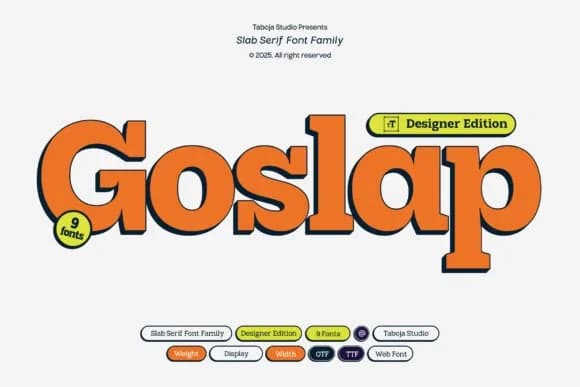
Picture yourself laying out a luxury leather goods catalog or designing corporate identity materials for a high-end brand. Goslap, created by Taboja Studio, is a modern slab serif that brings together structural confidence and visual flexibility. The font's distinctive trapezoidal serifs and inktrap details give it a contemporary edge while maintaining the weight and presence that slab serifs are known for.
This typeface works exceptionally well for editorial spreads in design magazines, premium product packaging, brand identity systems, and large-format display advertising. With nine variable styles spanning the full weight range, you can dial in exactly the thickness and visual weight your layout needs. The variable font technology means smoother transitions between weights, giving you creative control without compromising clarity. Multi-language support and OpenType alternates expand what you can do within a single project.
Goslap Font is a slab serif font that shines as a display or heading face. Pair it with a clean sans-serif or serif font for body text β the contrast creates a clear hierarchy while the two styles stay balanced and easy to read.